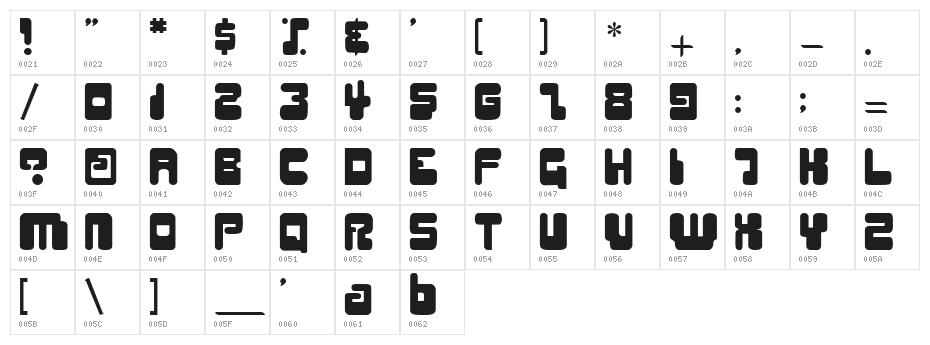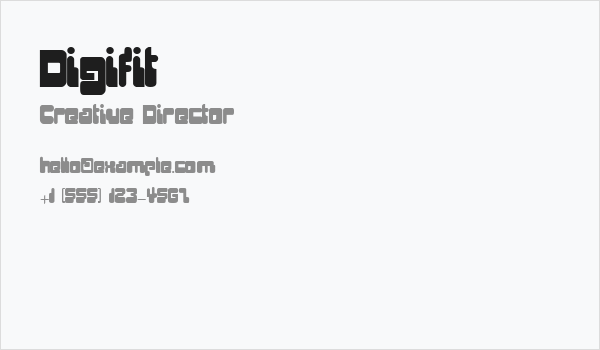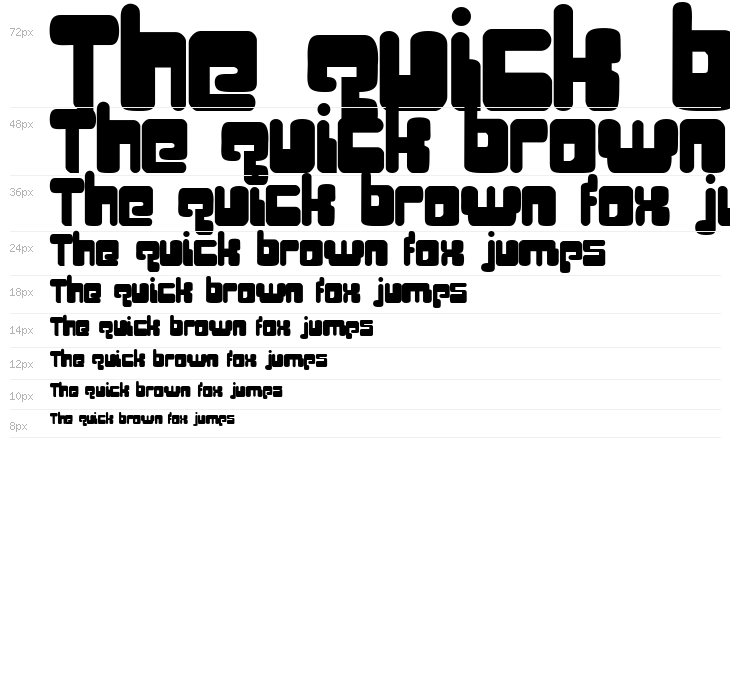
Digifit Font
Digifit Description
This font features a bold, futuristic design with rounded edges and a blocky appearance. The characters are uniformly thick, creating a strong visual impact. The uppercase and lowercase letters share a similar structure, maintaining consistency across the typeface. Numbers and special characters are designed to match the boldness and geometric style of the letters. The font's overall look is modern and tech-inspired, making it suitable for digital and technology-related projects. Its unique style ensures that it stands out, making it ideal for attention-grabbing headlines or logos.
Proposed ProjectsIdeal for technology branding, digital media, video game titles, and futuristic-themed posters.